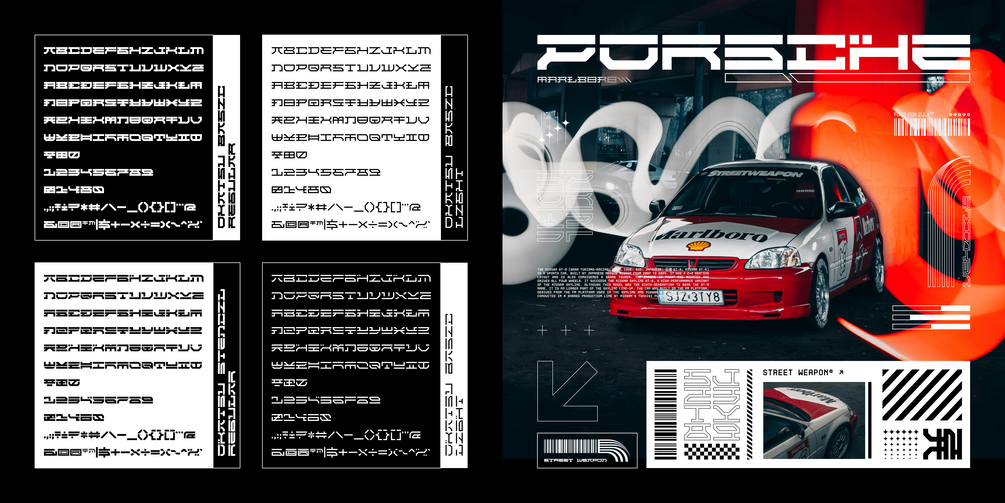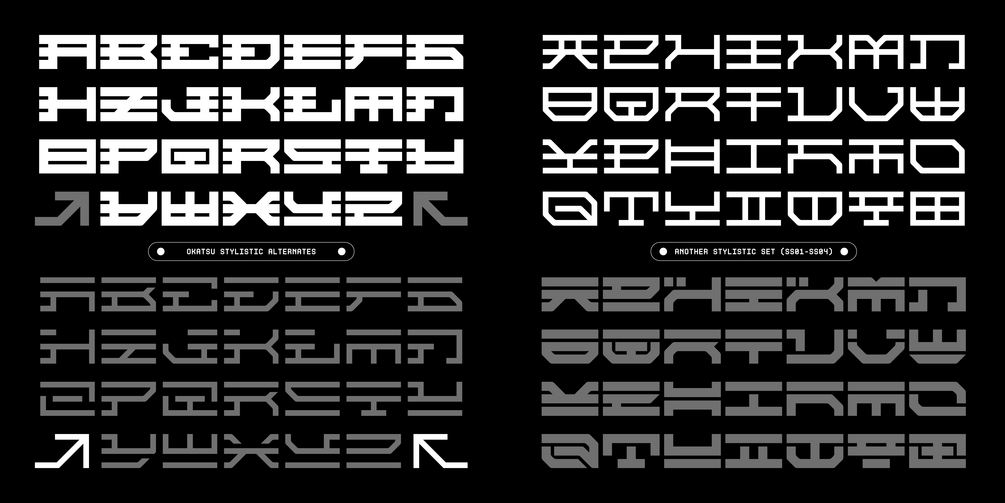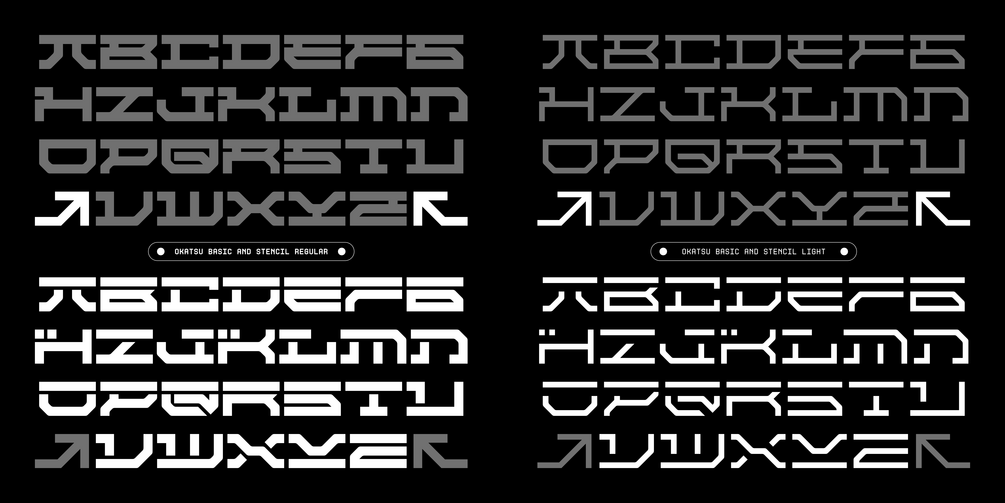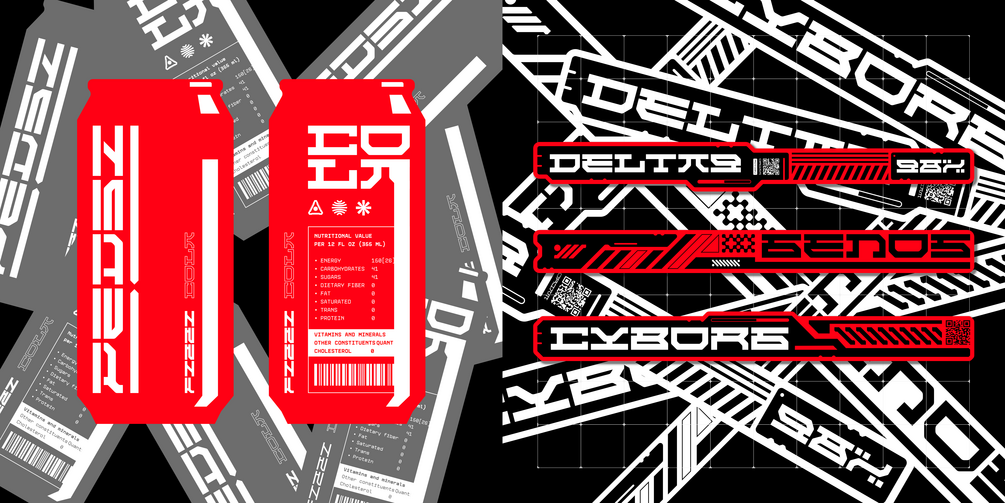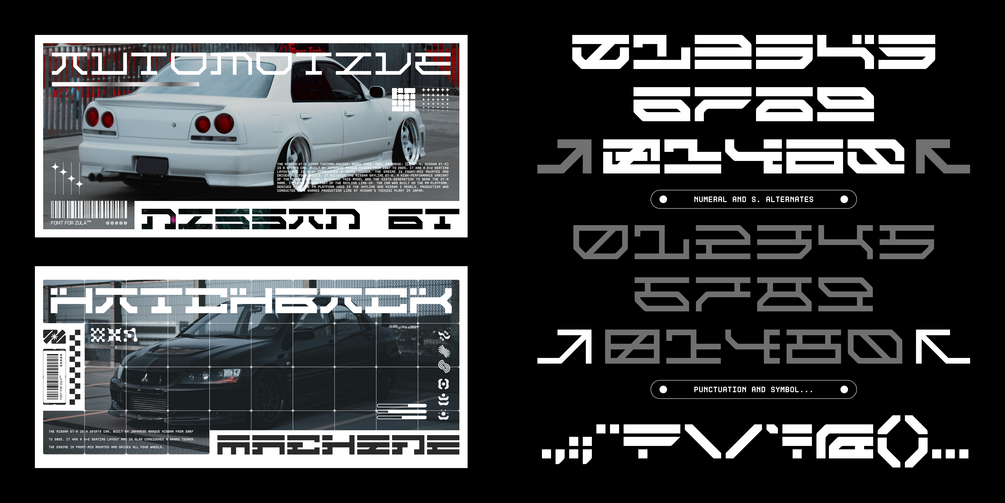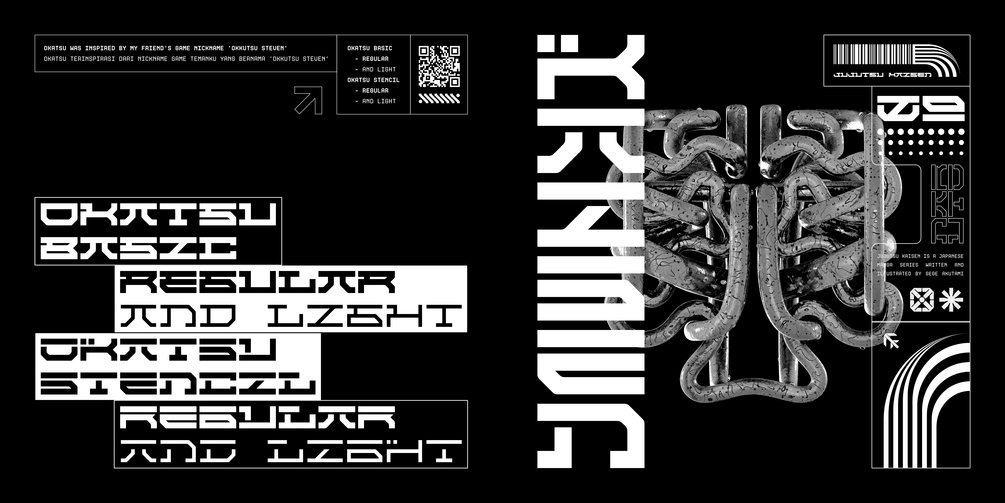
OKATSU
Okatsu Typeface merges futuristic design elements with subtle Japanese influences, creating a distinctive, avant-garde aesthetic. Perfect for projects that demand a bold, experimental, and forward-thinking visual identity. Designed for both display and creative branding, Okatsu offers two unique variants — Basic and Stencil — each available in Regular and Light styles. Every character is carefully crafted to strike a balance between precision and expression, making it ideal for logos, posters, apparel design, and digital artwork.
Okatsu Typeface Includeds:
+ 2 Variants × 2 Styles: Basic Regular, Basic Light, Stencil Regular, Stencil Light
+ 26 Letters
+ 54 Alternates
+ 10 Numerals + 5 Numeral Alternates
+ Basic punctuation and symbols